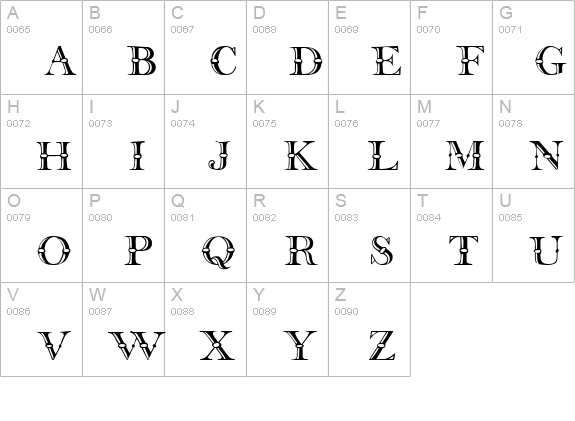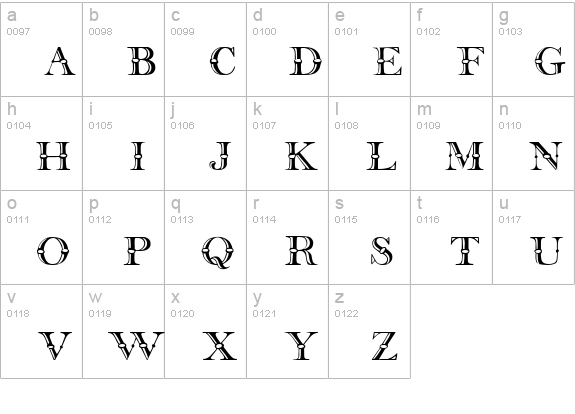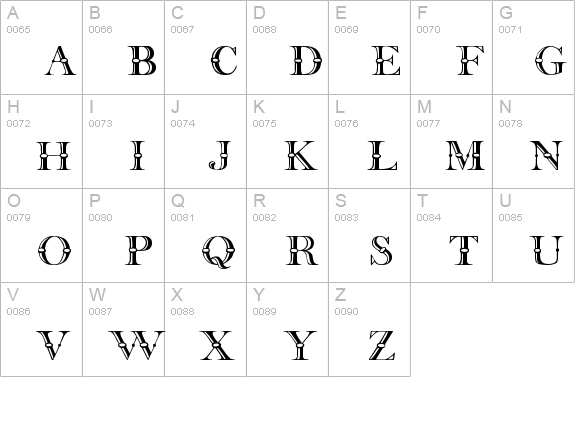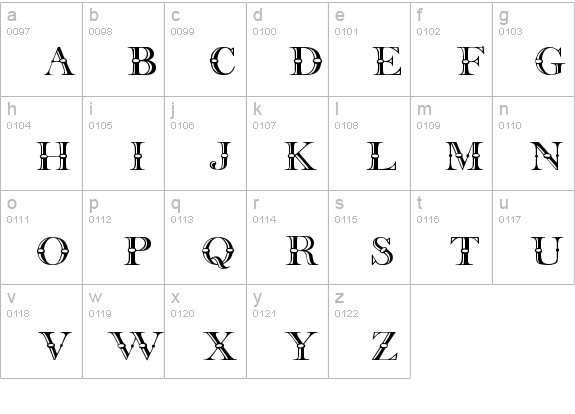
Relikt Font Details
Relikt font is a stunning display typeface that exudes elegance and sophistication. With its sleek lines and modern design, this font is perfect for a wide range of design projects, from branding to editorial layouts. What sets Relikt font apart is not only its aesthetic appeal but also the fact that it is completely free to download. Yes, you read that right - this exquisite typeface can be yours at no cost! Simply head over to FontsMarket.com to access this gem and elevate your designs with its unique charm. Whether you're working on a logo, website, poster, or any other creative endeavor, Relikt font will surely make a statement and leave a lasting impression. Download it today and let your creativity soar with this exceptional font.